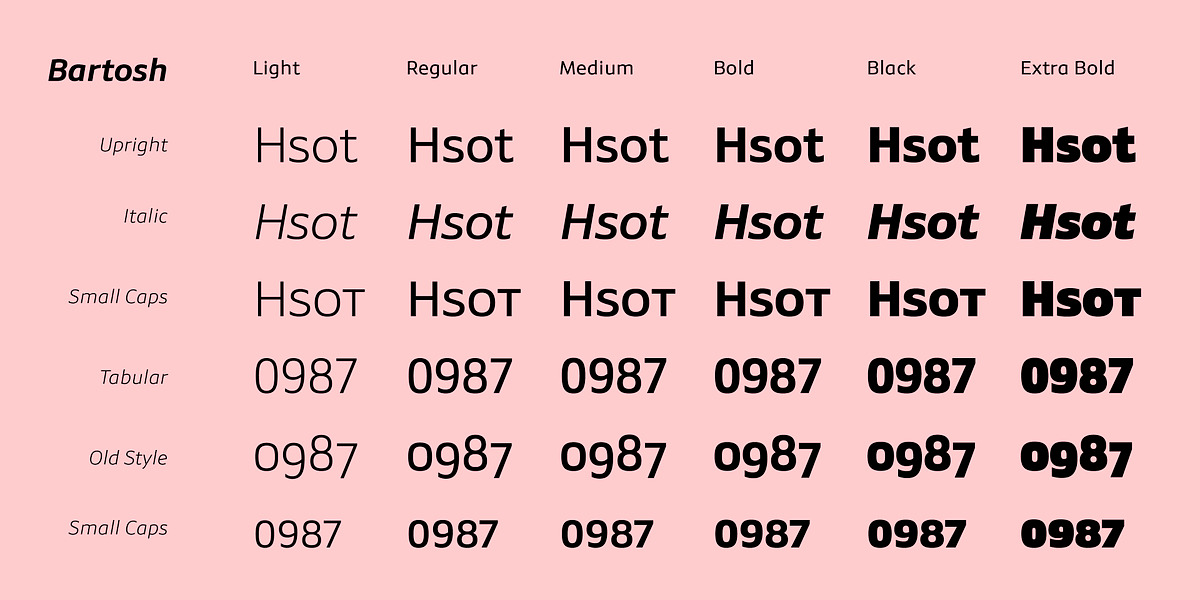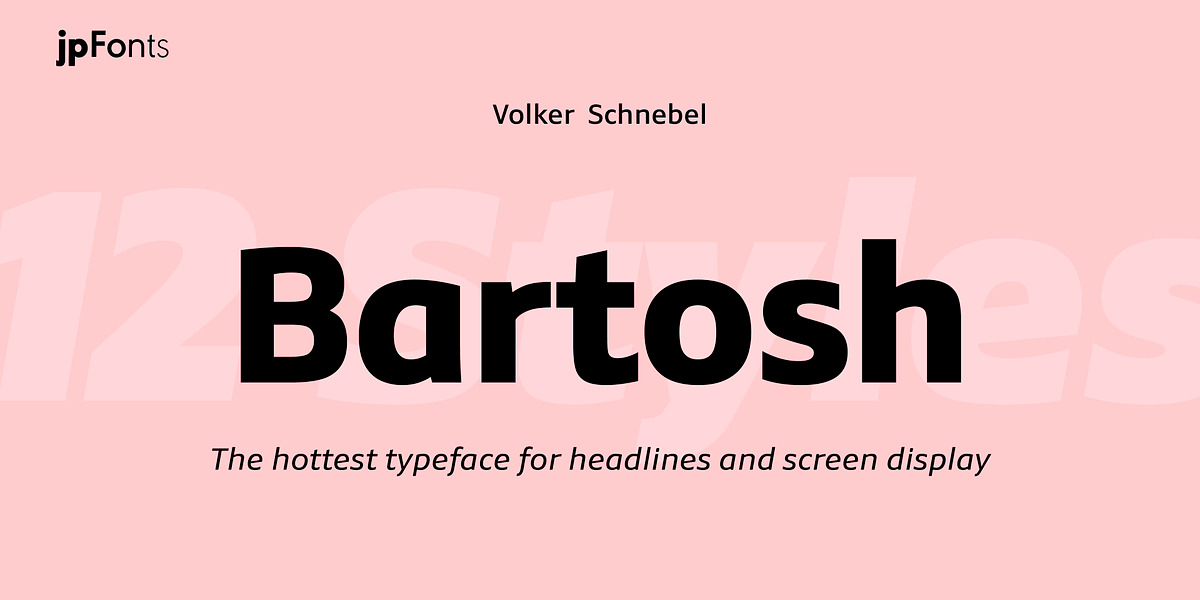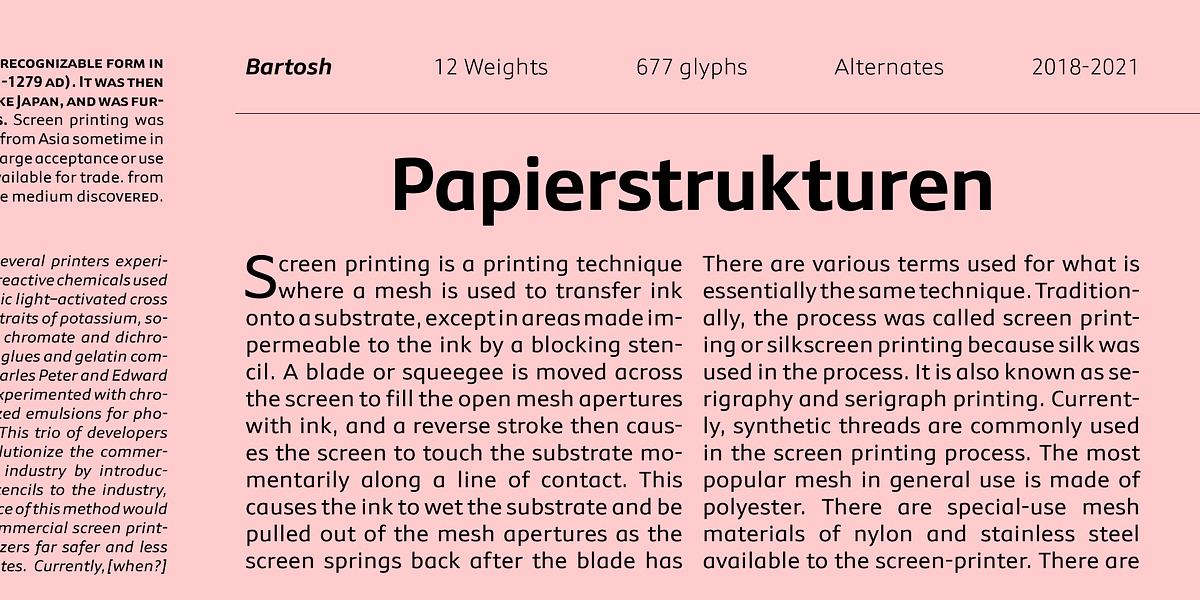
Bartosh
Bartosh is a humanist sans serif font designed by Volker Schnebel for display purposes. Its large x-height and clear, open shapes contribute to its readability, making it suitable for headings, captions, and highlighting text passages. It offers six weights, with the extra-bold version being particularly noteworthy for its rarity. Bartosh includes matching italics, a comprehensive character set (677 characters), OpenType features for adjusting digit and currency styles, and small caps.